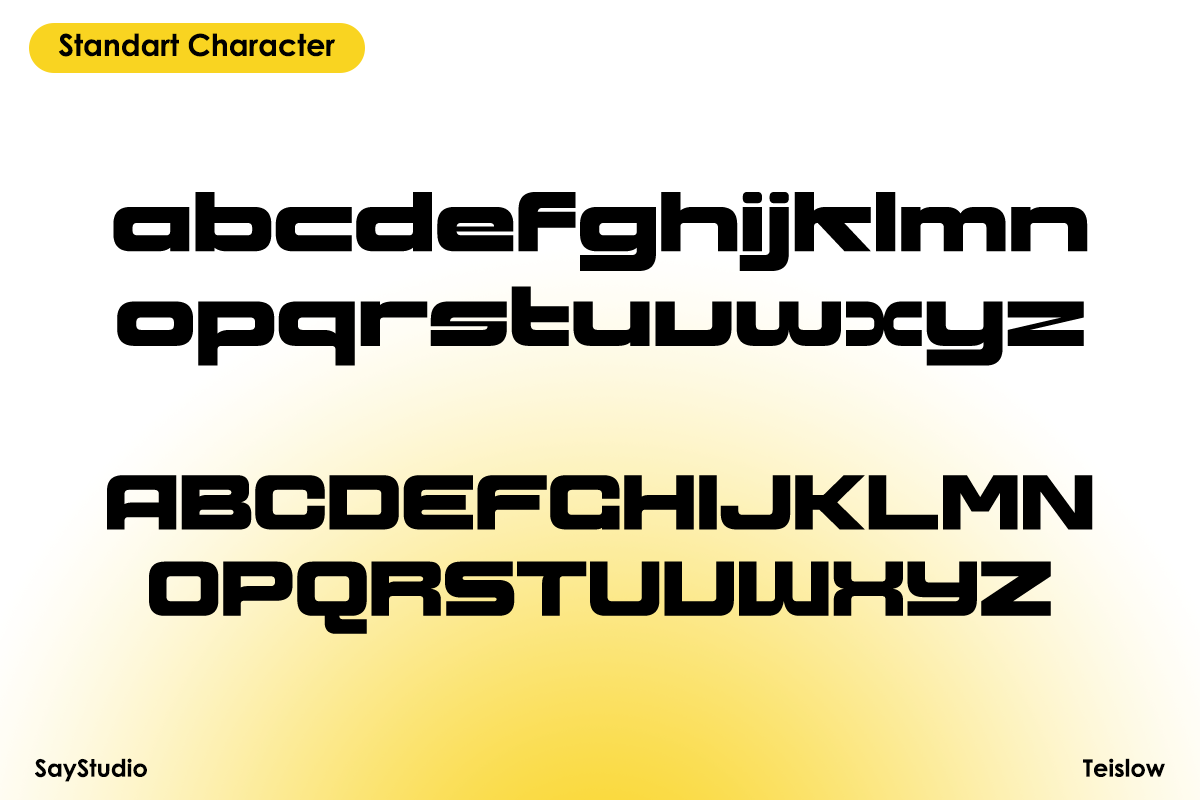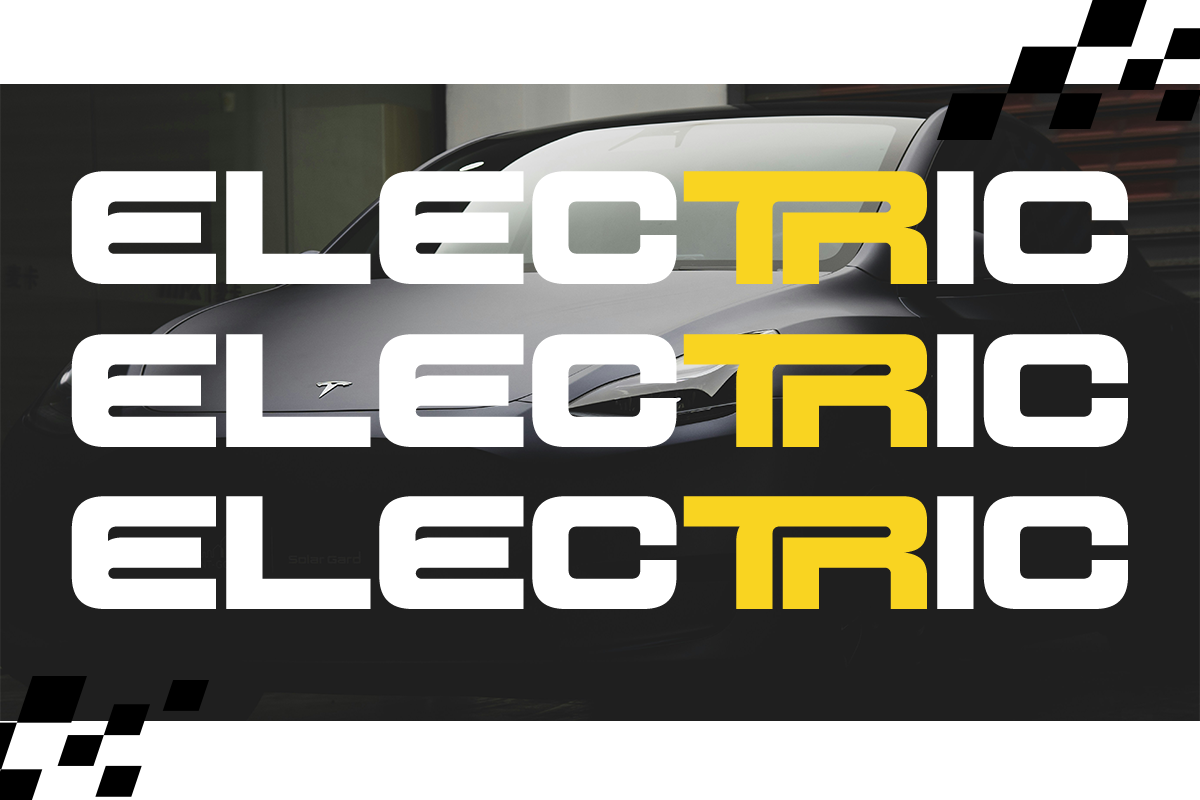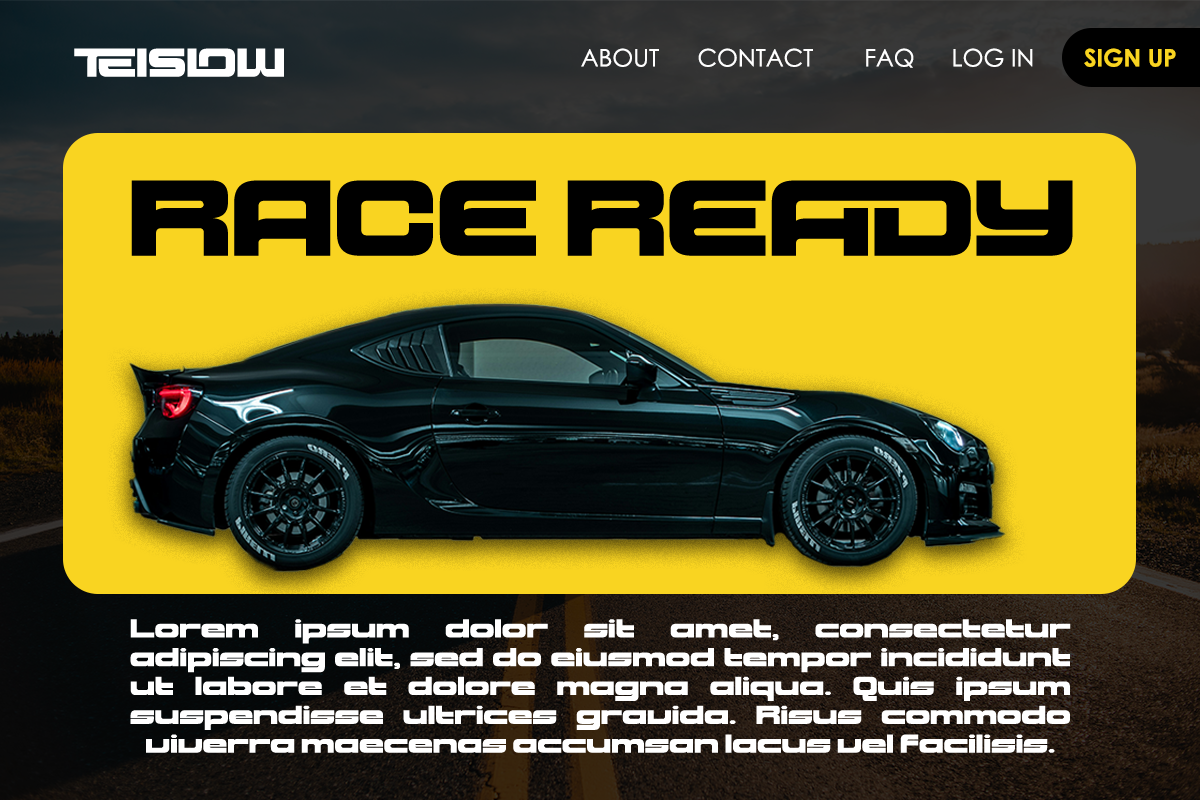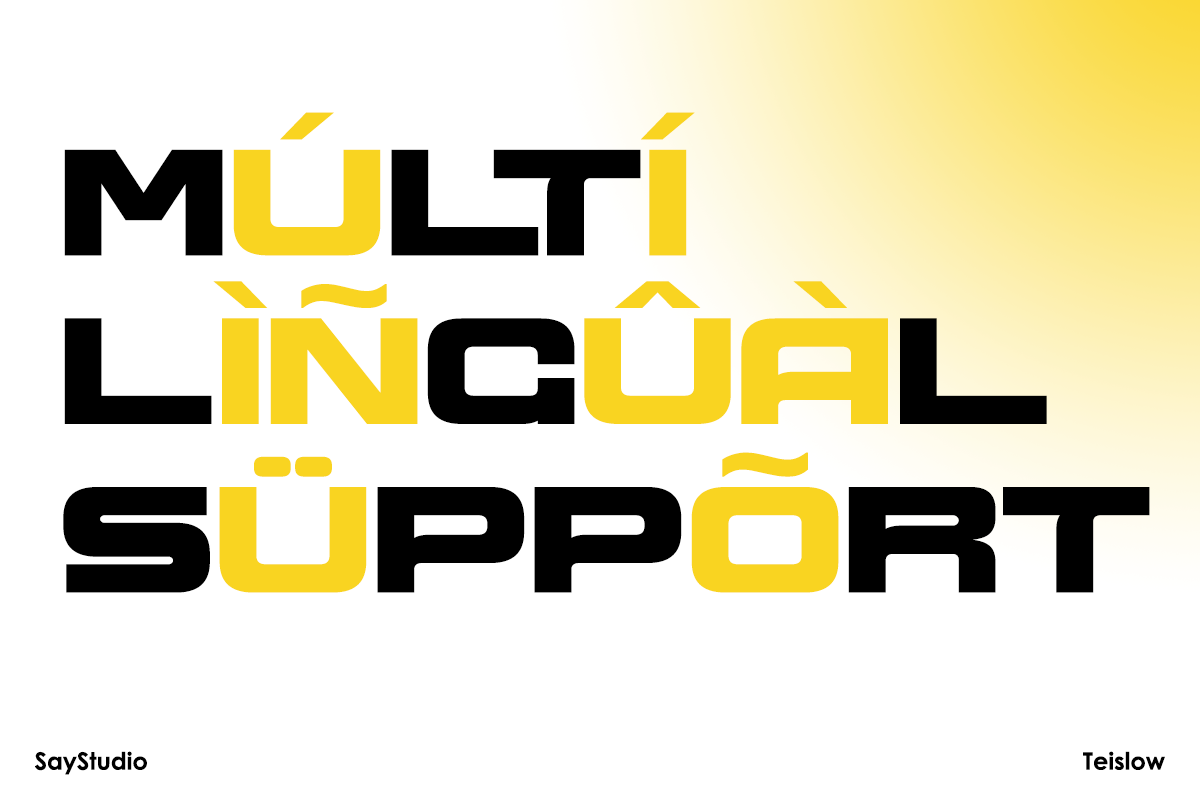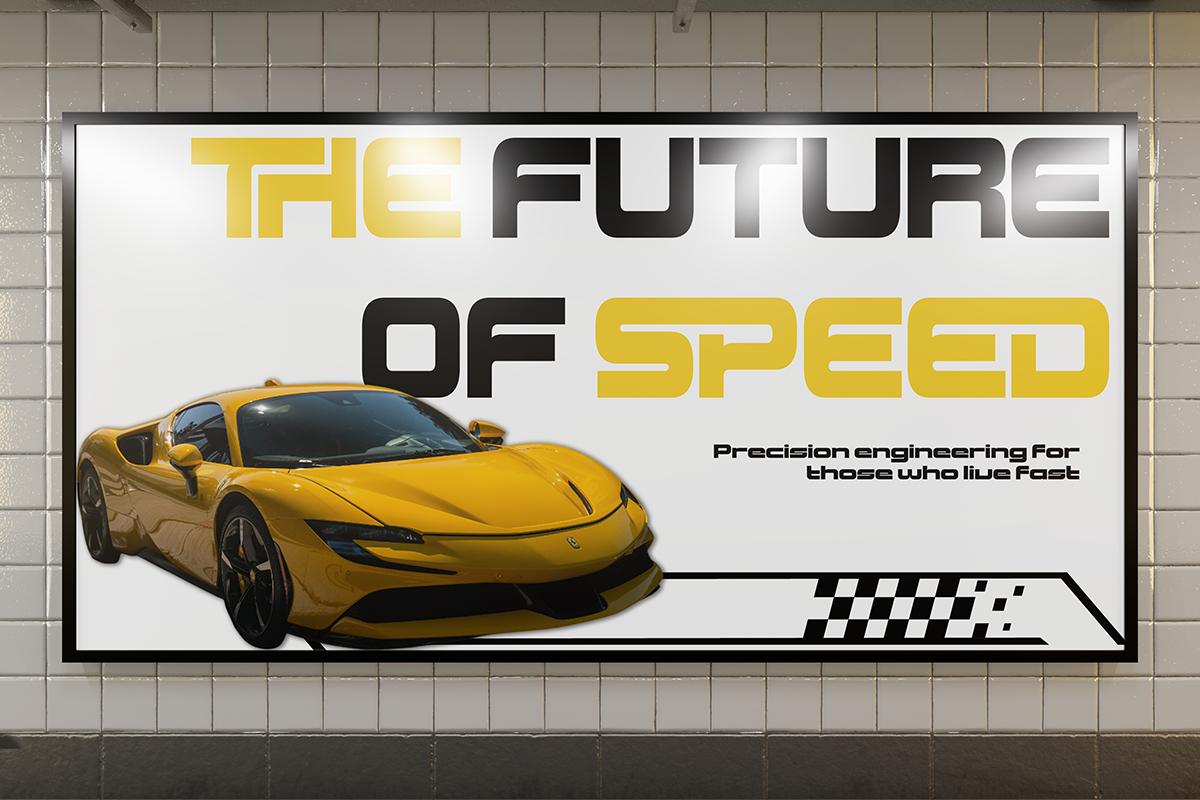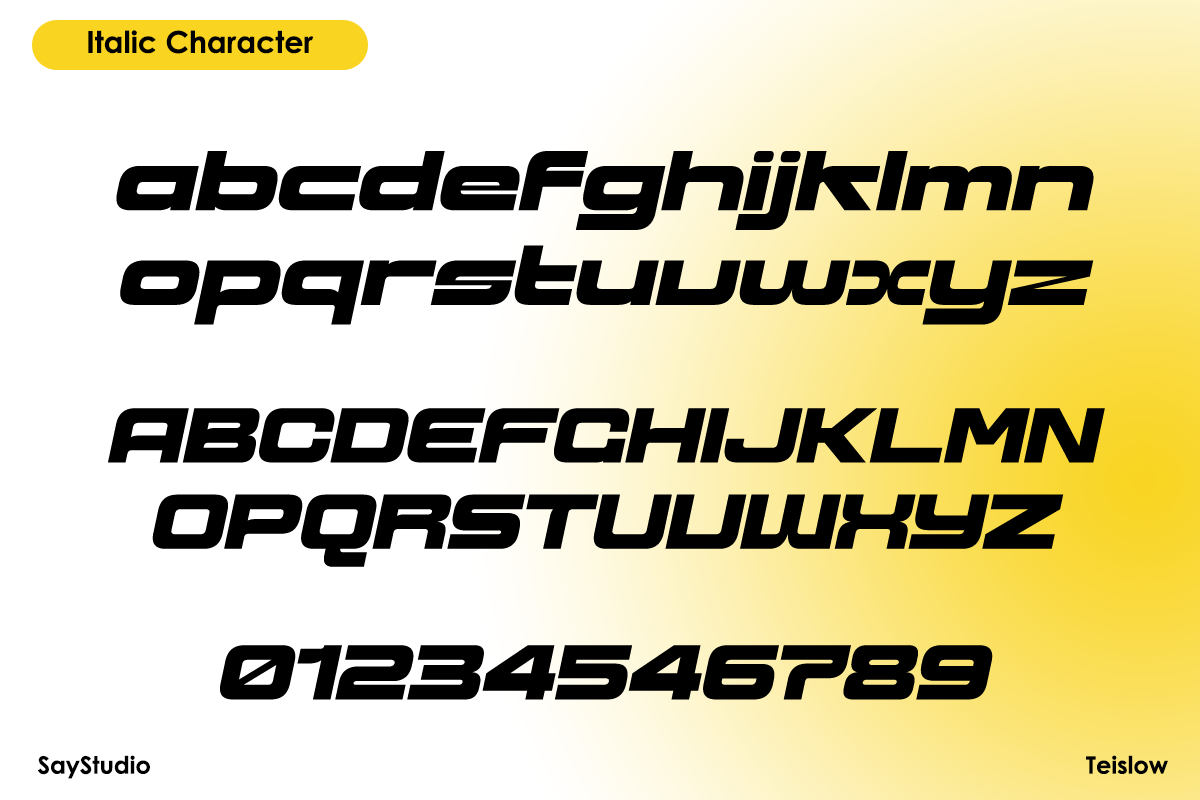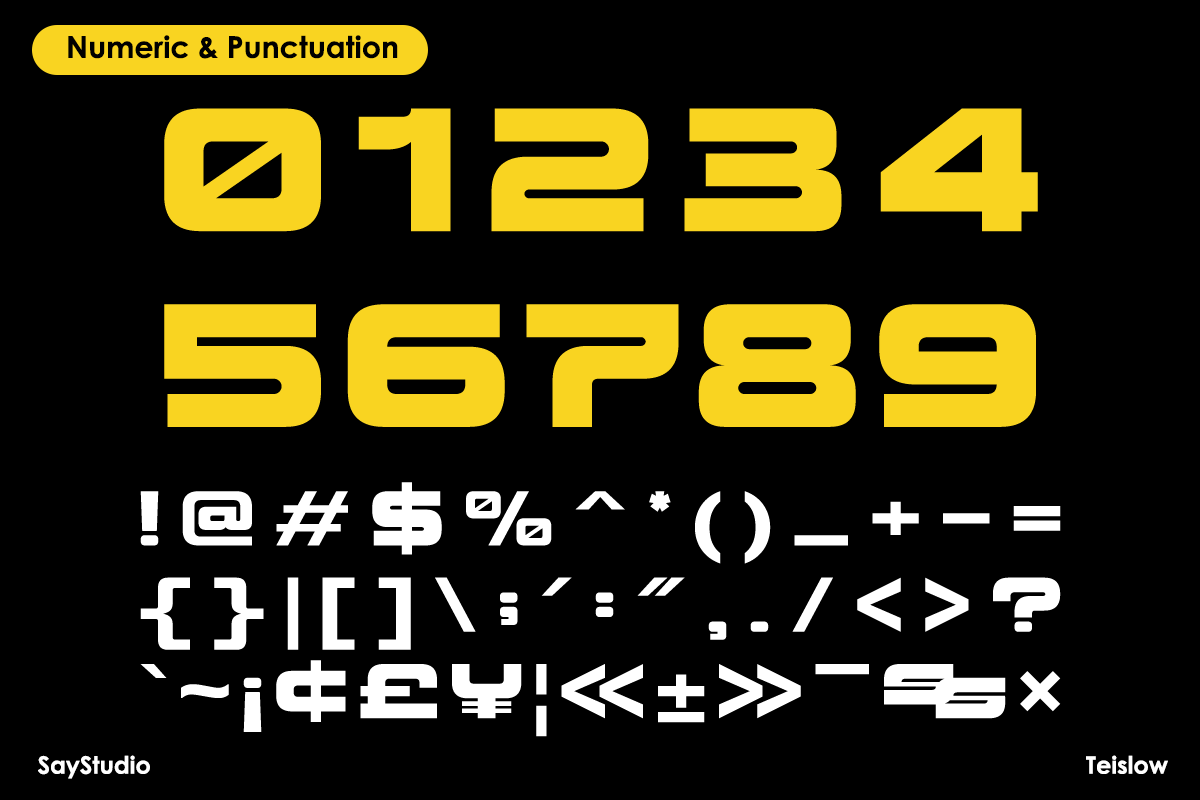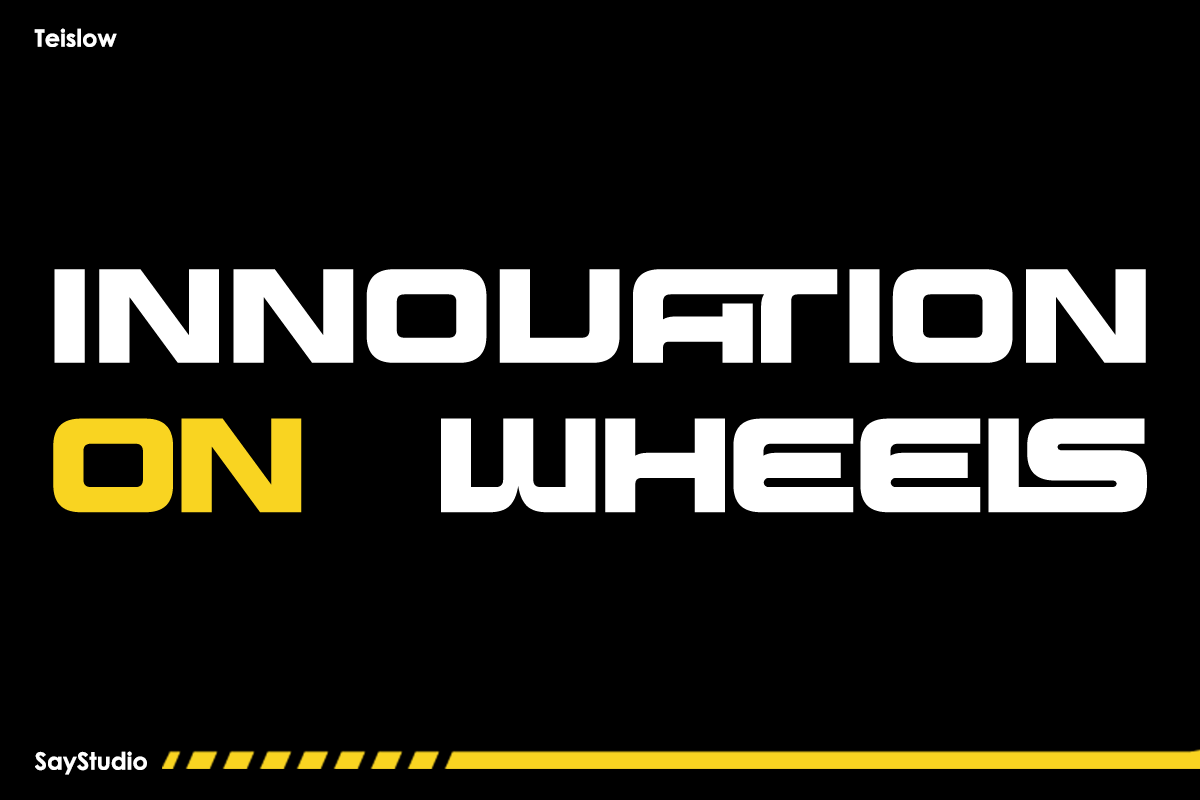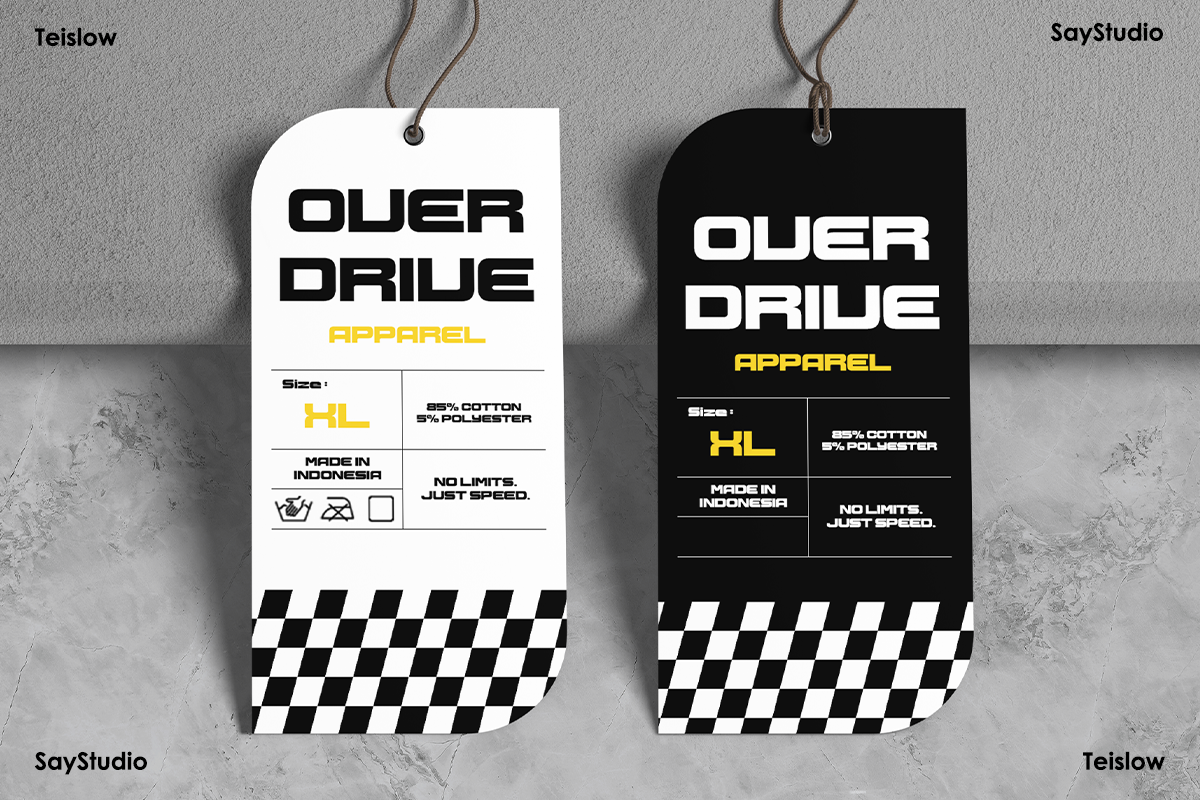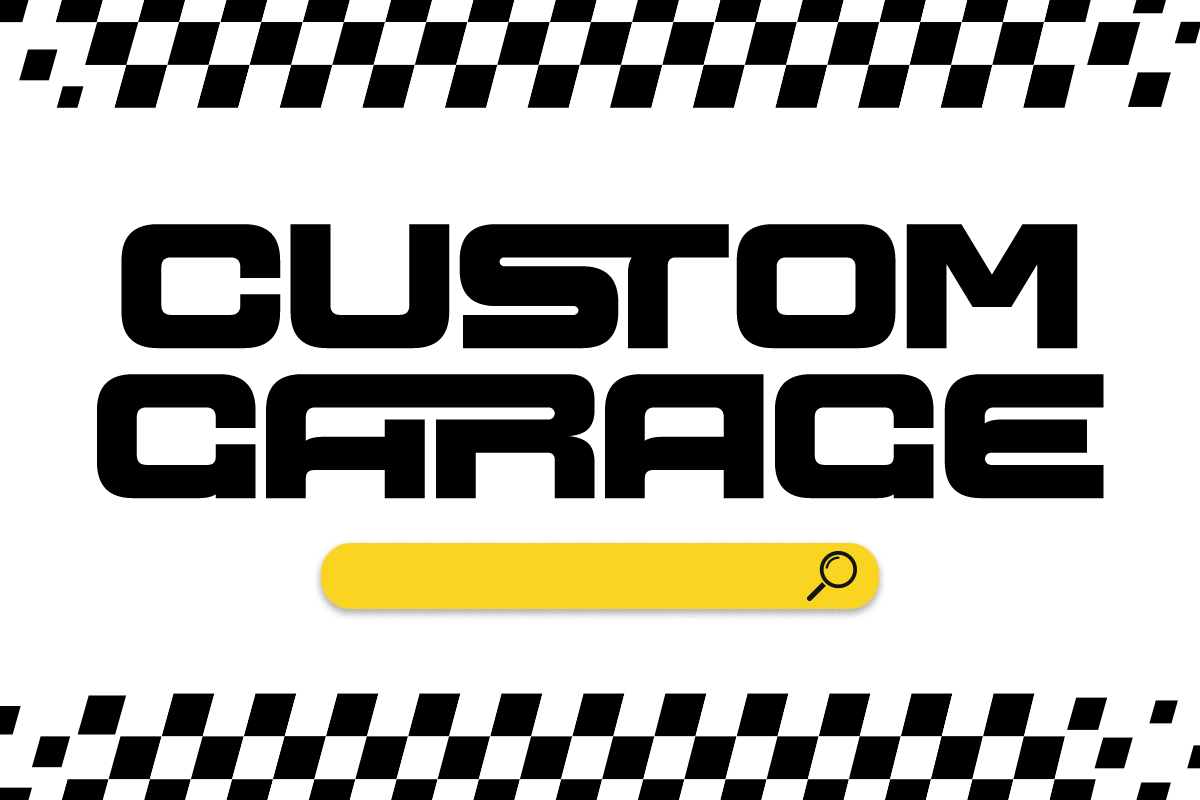
Teislow – Futuristic Typeface
Teislow is a futuristic display typeface built to express speed, power, and modern innovation. Inspired by automotive design, technology, and sci-fi aesthetics, Teislow features bold geometric forms with sharp edges that deliver a strong and confident visual impact.
Designed for high-energy visuals, Teislow brings a sense of motion and precision into every composition. Its solid structure and modern proportions make it highly readable while maintaining a striking, aggressive character. This balance allows Teislow to stand out in both digital and print applications.
Teislow is ideal for automotive branding, racing visuals, futuristic posters, technology products, gaming titles, and modern advertising. Whether used for logos, headlines, packaging, or promotional designs, this typeface delivers a powerful futuristic tone that commands attention.
Perfect for designers who want bold typography with a cutting-edge feel, Teislow transforms text into a dynamic and modern statement.